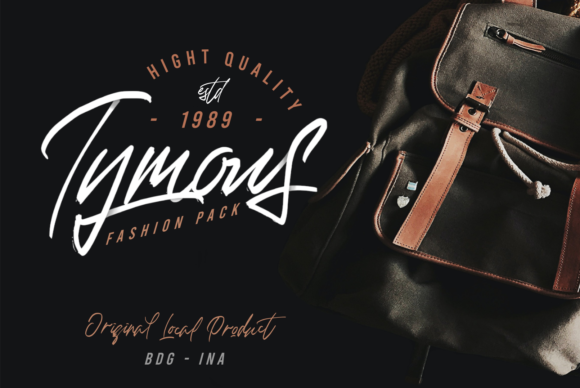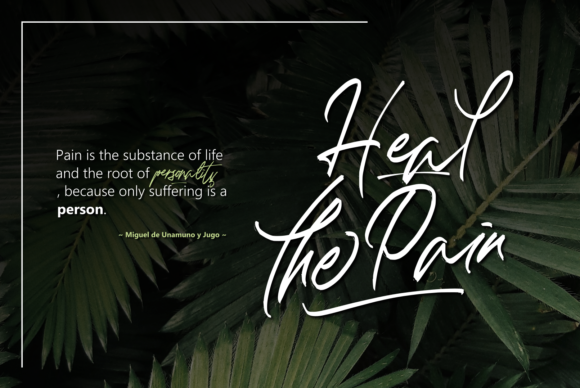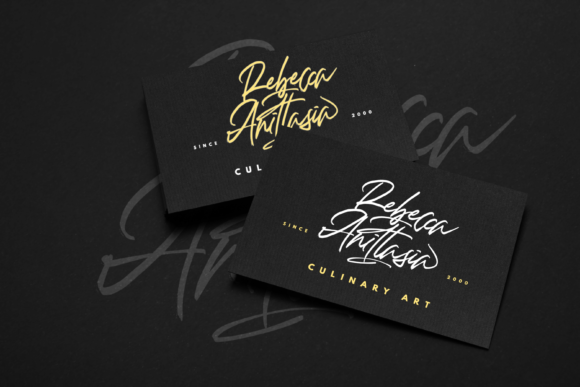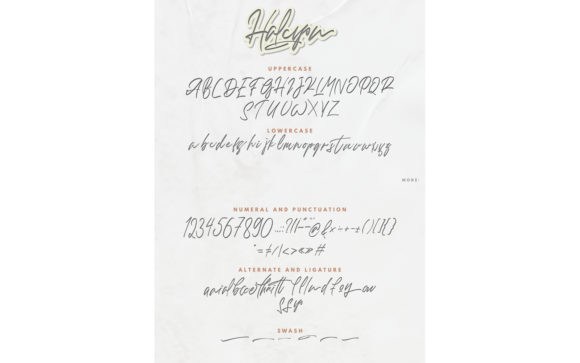
Introduction to Halcyon Font
Do you remember that moment when you stumbled upon the perfect font for your creative project? It’s like hitting the jackpot – everything falls into place, and your design takes on a whole new level of sophistication. For designers like you, finding the right font can make all the difference in bringing your vision to life. That’s why we’re excited to introduce you to the enchanting Halcyon Font, a timeless handwritten font that’s sure to captivate your heart.
With its incredibly relaxed and versatile style, the Halcyon Font is perfect for a wide range of creative applications, from elegant wedding invitations to beautiful stationery art. Whether you’re a seasoned designer or just starting out, this high-quality font is a valuable addition to your design resource library. And the best part? It’s available for free download, complete with a transparent background that makes it easy to use in any project.
- High-quality, professional design ideal for creative projects, including logos, branding materials, and more.
- Unique, elegant design with a transparent background, allowing for versatility in design applications.
- Designed to be highly legible, making it an excellent choice for body text, headings, and other text-based design elements.
- Perfect for designers and artists looking for a high-quality, design resource that adds a touch of sophistication to their creative project.
- Includes a range of font styles and weights, allowing for endless possibilities in customizing the font to suit your design needs.
Honest Review: Halcyon Font
I recently stumbled upon the Halcyon Font while searching for a high-quality design resource for a creative project. I was excited to give it a try and see how it would work for me.
✨ The Halcyon Font offers a beautiful, modern design that’s perfect for a variety of applications. It’s available for free download, which is a huge plus in my book. The font is also incredibly versatile, making it a great addition to any design project.
⚠️ The only real limitation I found with the Halcyon Font is that it’s not as extensive as some other font libraries. However, for a free download, I’m not complaining!
I was really impressed with the Halcyon Font and would definitely recommend it to anyone looking for a high-quality, free design resource. It’s a great addition to any designer’s toolkit and is sure to come in handy for your next creative project.
The Halcyon Font is perfect for various design applications, including logos, business cards, and marketing materials. Its high-quality and transparent background make it a great choice for creative projects that require a touch of sophistication and elegance.